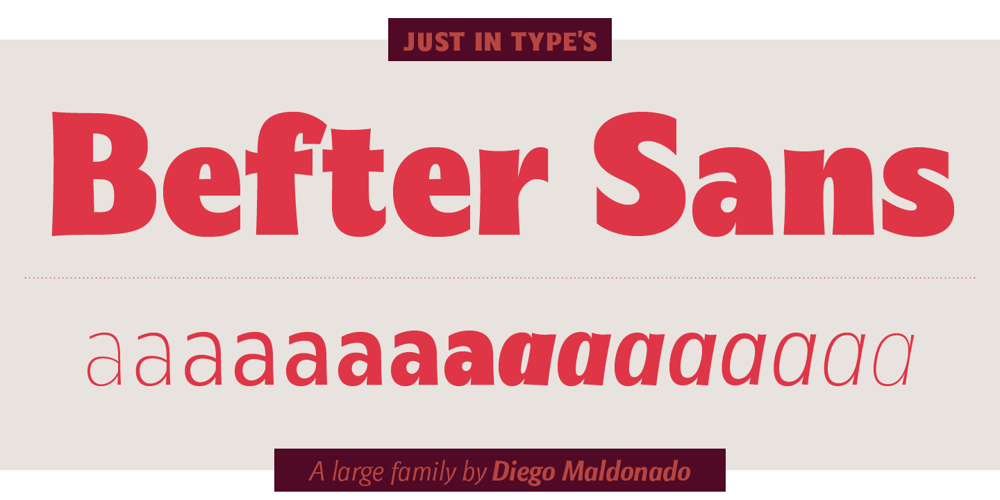
Befter Sans Font Family was designed by Diego Maldonado and published by Just in Type. Befter Sans contains 16 styles and family package options. Befter Sans is a humanist typeface for display use or short texts. Use traditional combined with contemporary design to make it looks classic, but feel new. Befter has 8 weights plus matching true italics. Download the full specimen here